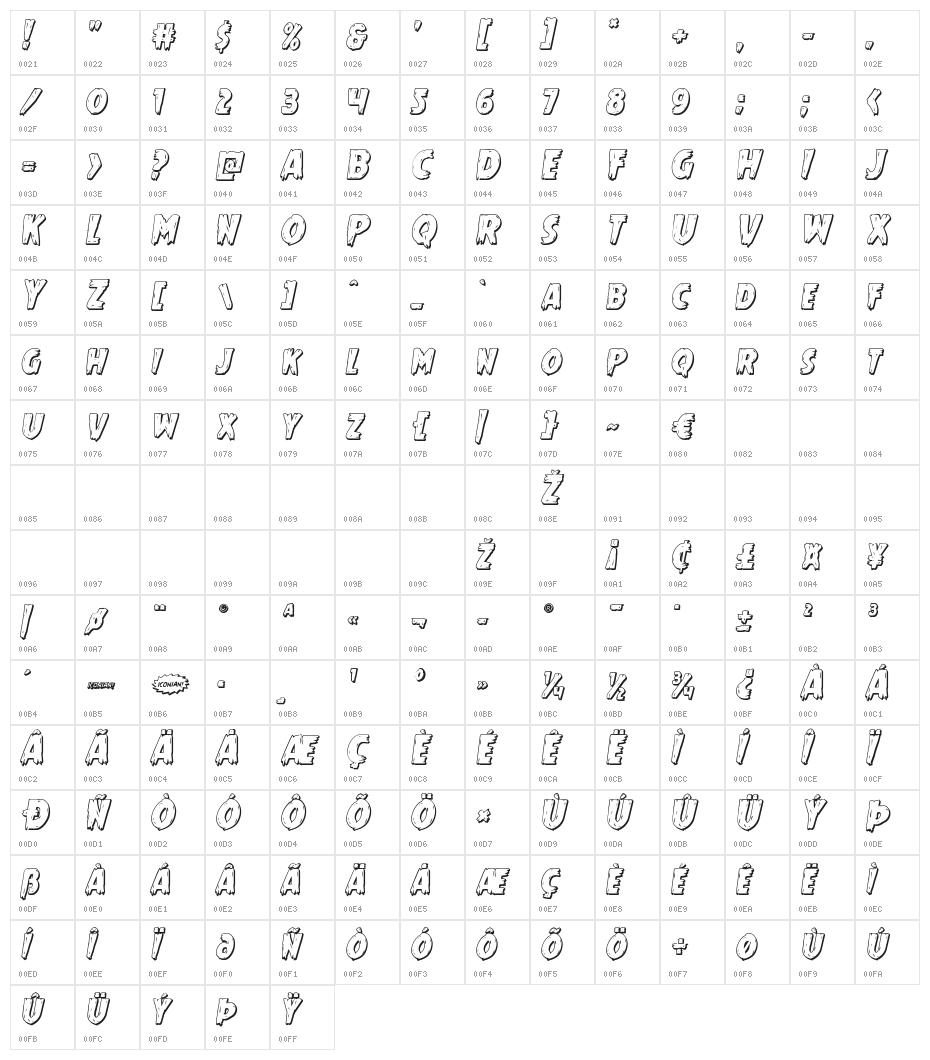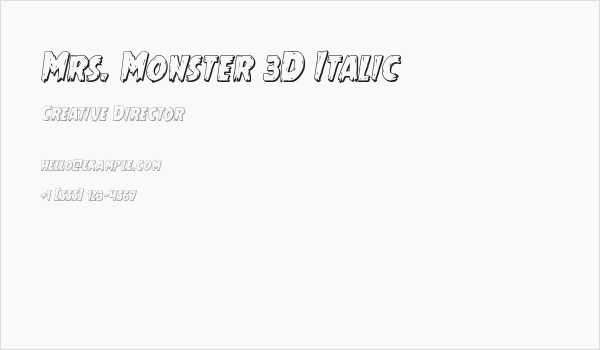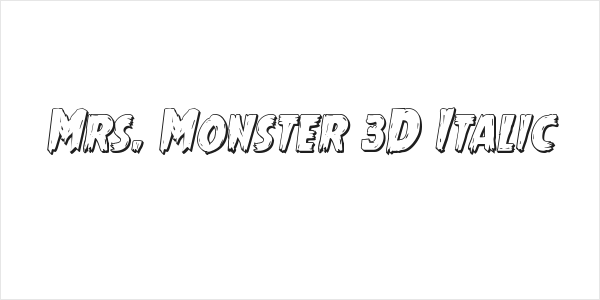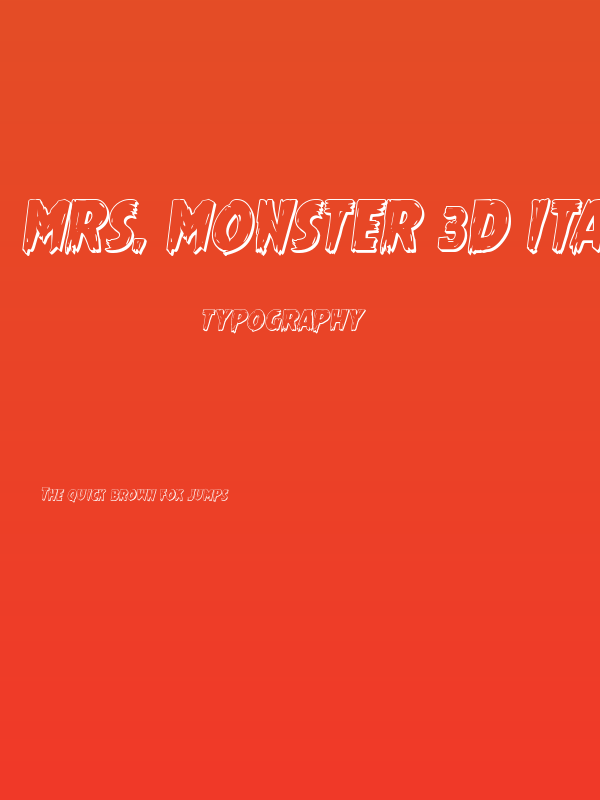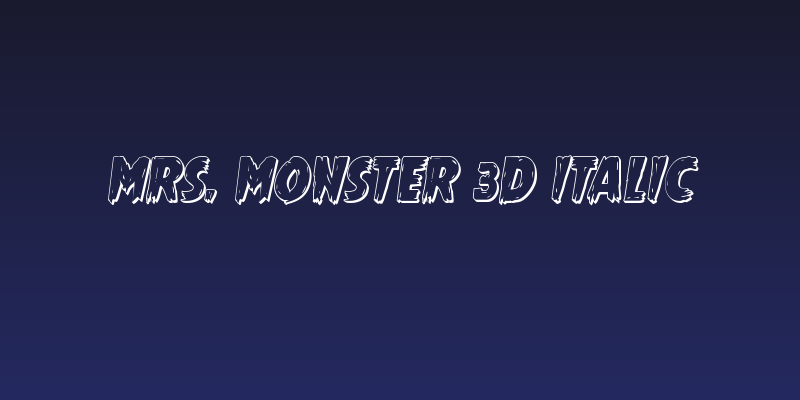
Mrs. Monster 3D Italic Font
Mrs. Monster 3D Italic Description
This font features a bold, three-dimensional appearance with a playful and slightly chaotic style. The letters are italicized, giving them a dynamic and energetic feel. Each character has a rough, textured edge that adds to its quirky and fun personality. The font is highly decorative, making it ideal for creative and eye-catching designs. Its unique style is reminiscent of comic book lettering, with exaggerated forms and a sense of movement. The boldness of the font ensures it stands out, while the 3D effect adds depth and interest.
| Proposed Projects | Ideal for comic books, posters, Halloween-themed designs, and playful branding. |